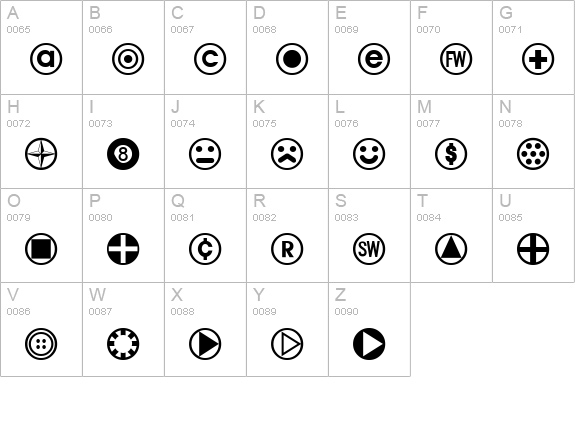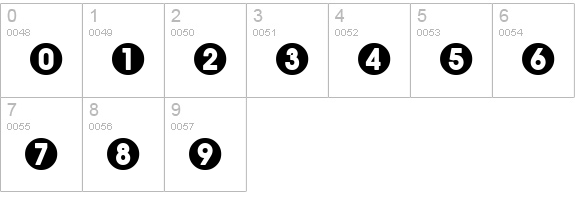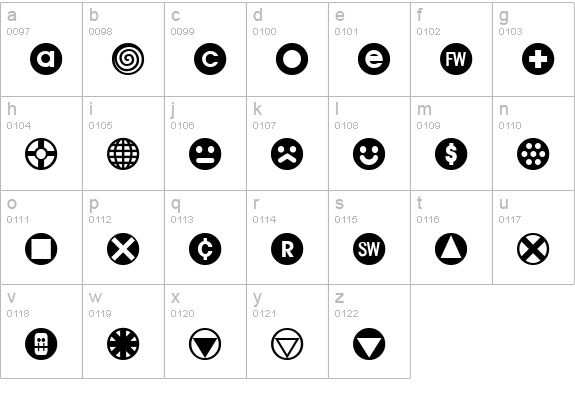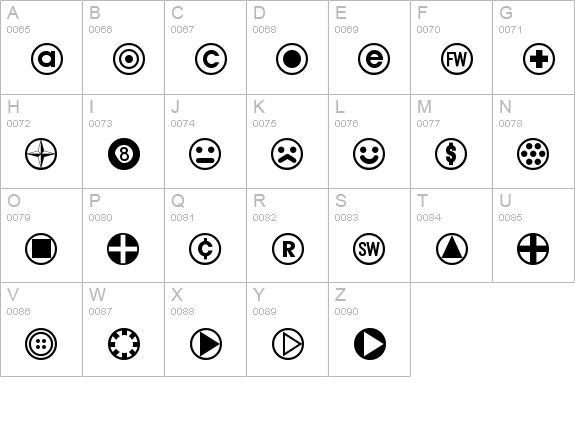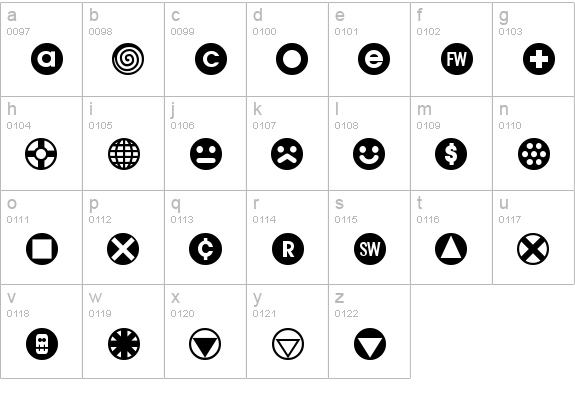
BulletBalls AOE Font Details
Introducing BulletBalls AOE font, a dynamic and versatile typeface that exudes energy and impact. With its rounded edges and bold letterforms, this font is perfect for making a statement in your designs. Whether you're creating posters, logos, or social media graphics, BulletBalls AOE will grab attention and leave a lasting impression. The best part? BulletBalls AOE font is completely free to download at FontsMarket.com. Take advantage of this incredible offer and add a touch of boldness to your projects with BulletBalls AOE font today!